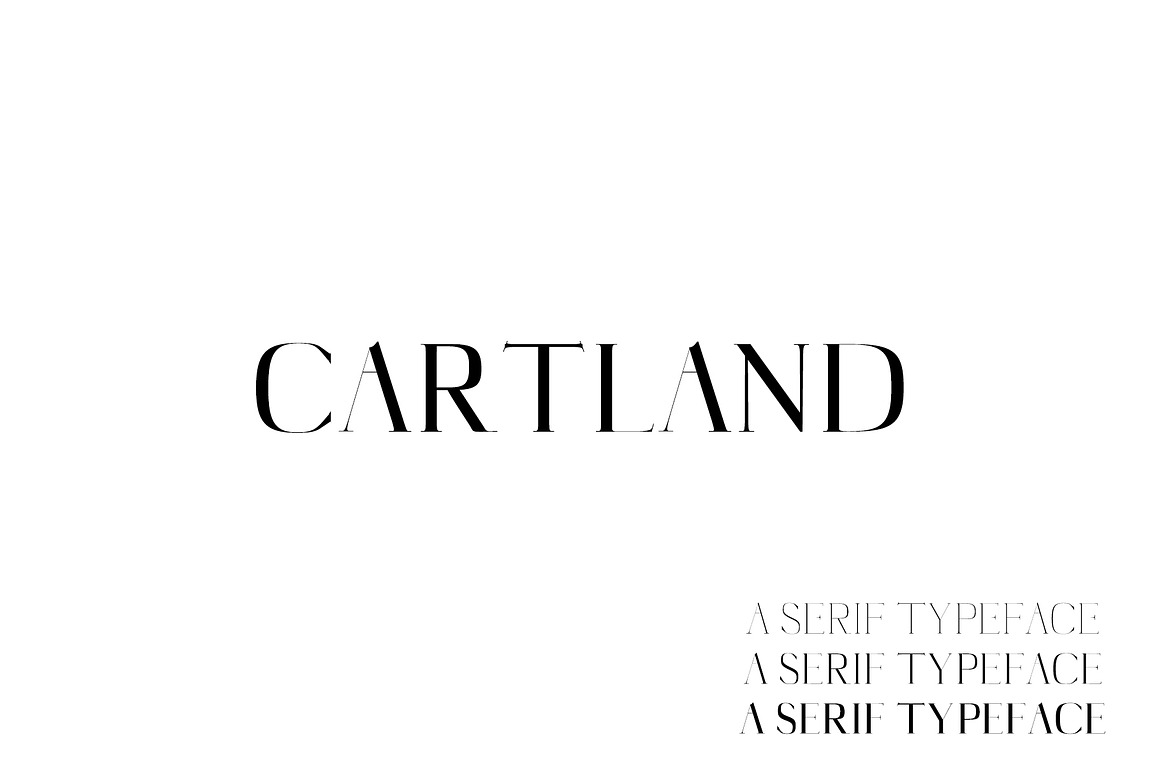
Cartland Serif 3 Font Family Pack
This distinguished serif typeface pack is perfect for luxury fashion magazines, premium book publishing, elegant wine labels, high-end restaurant branding, sophisticated law firm identities, classical music programs, fine art gallery catalogs, and upscale hospitality materials. Cartland Serif 3 Font Family Pack excels in applications where traditional elegance and refined sophistication create lasting impressions.
What makes Cartland Serif 3 Font Family Pack so exciting is its masterful embodiment of classical typography heritage with contemporary refinement. The font features gracefully proportioned letterforms with distinctive serifs that enhance both readability and visual appeal. Each character demonstrates exquisite attention to detail, with carefully crafted curves and balanced proportions that create a sense of timeless authority and prestige. The pack's sophisticated design philosophy seamlessly combines old-world craftsmanship with modern versatility, making it perfect for brands that value tradition while embracing innovation.
The Cartland Serif 3 Font Family Pack includes three essential weights: Regular, Medium, and Bold. This thoughtfully curated selection provides designers with optimal range for creating elegant typographic systems and maintaining visual hierarchy across sophisticated design applications. Each weight preserves the family's inherent dignity and classical appeal while offering distinct characteristics for various communication needs and emphasis levels.
Whether you're crafting prestigious publication designs, developing luxury brand identities, or creating refined marketing materials, Cartland Serif 3 Font Family Pack Free Download delivers the distinguished aesthetic that premium brands demand. Its classical foundation makes it particularly suitable for established institutions, luxury goods companies, fine dining establishments, and cultural organizations. The font pack's exceptional legibility ensures comfortable reading experiences in both extended text and impactful display applications, while its timeless character commands respect and conveys authority.
This prestigious serif collection represents the pinnacle of traditional typography excellence for brands seeking to communicate heritage, quality, and enduring sophistication.